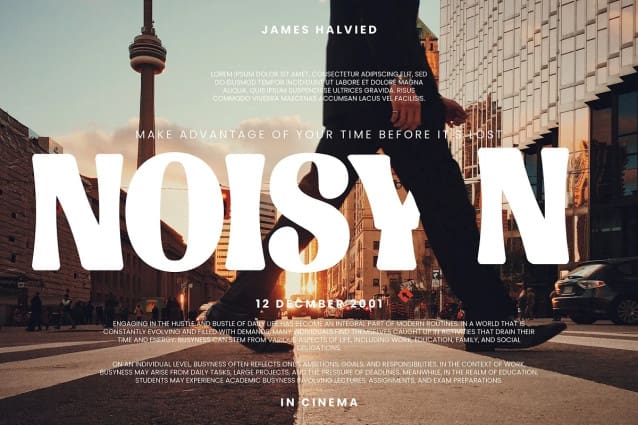
Beacon Font
Beacon Font, a simple and bold display font. So perfect for you who needs a typeface for logo designs, magazine, social media, brochure, and many more.